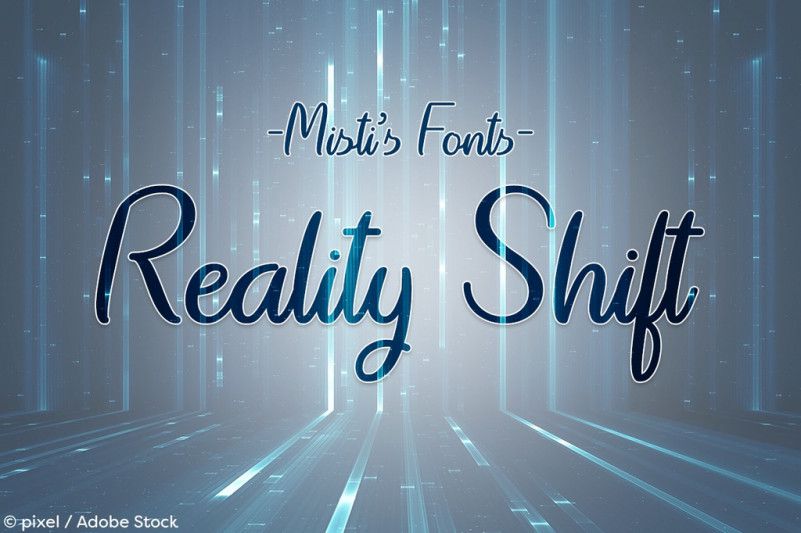
Reality Shift Font
Fill your designs with this beautiful hand-lettered handwritten font. Reality Shift is the perfect blend of old and new with its modern hand-lettered lowercase and the timelessness of its hand drawn uppers.